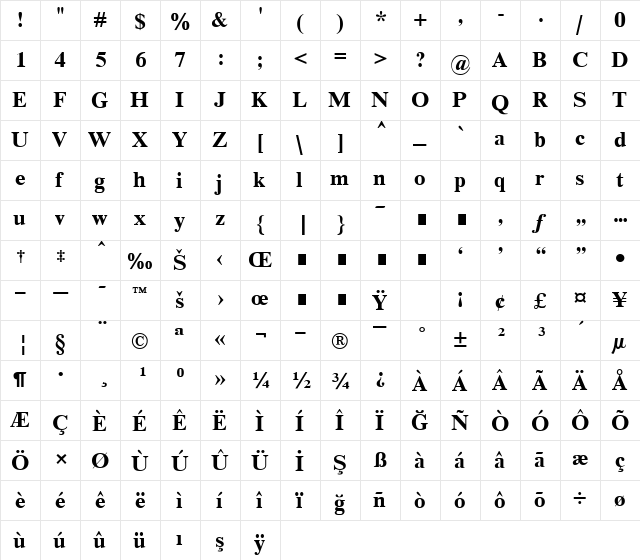
TmsTr Bold
Design Context for TmsTr Typeface
TmsTr is a composed and adaptable typeface that performs quietly and consistently across a wide range of design contexts. The heavy weight commands attention and anchors typographic hierarchies.